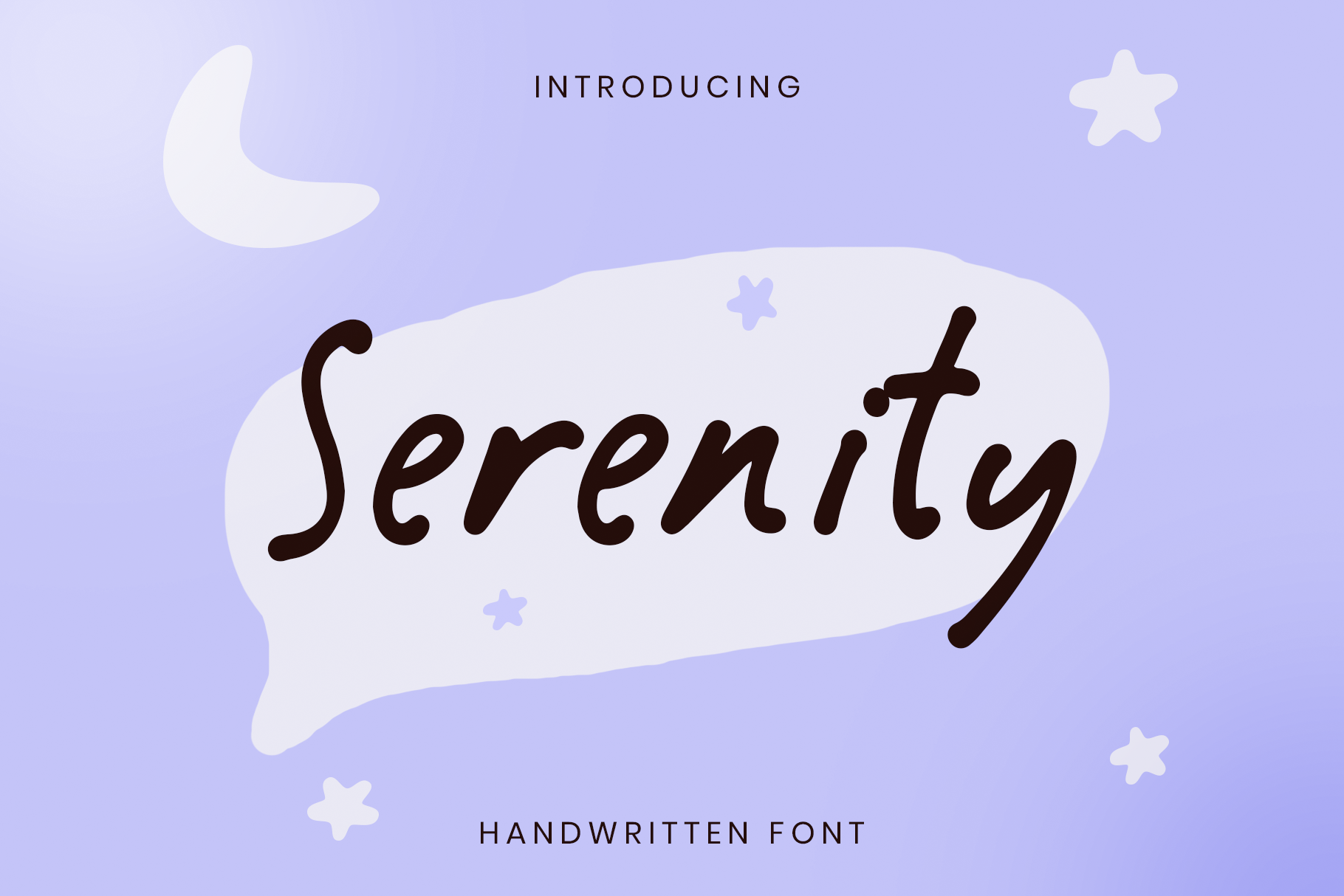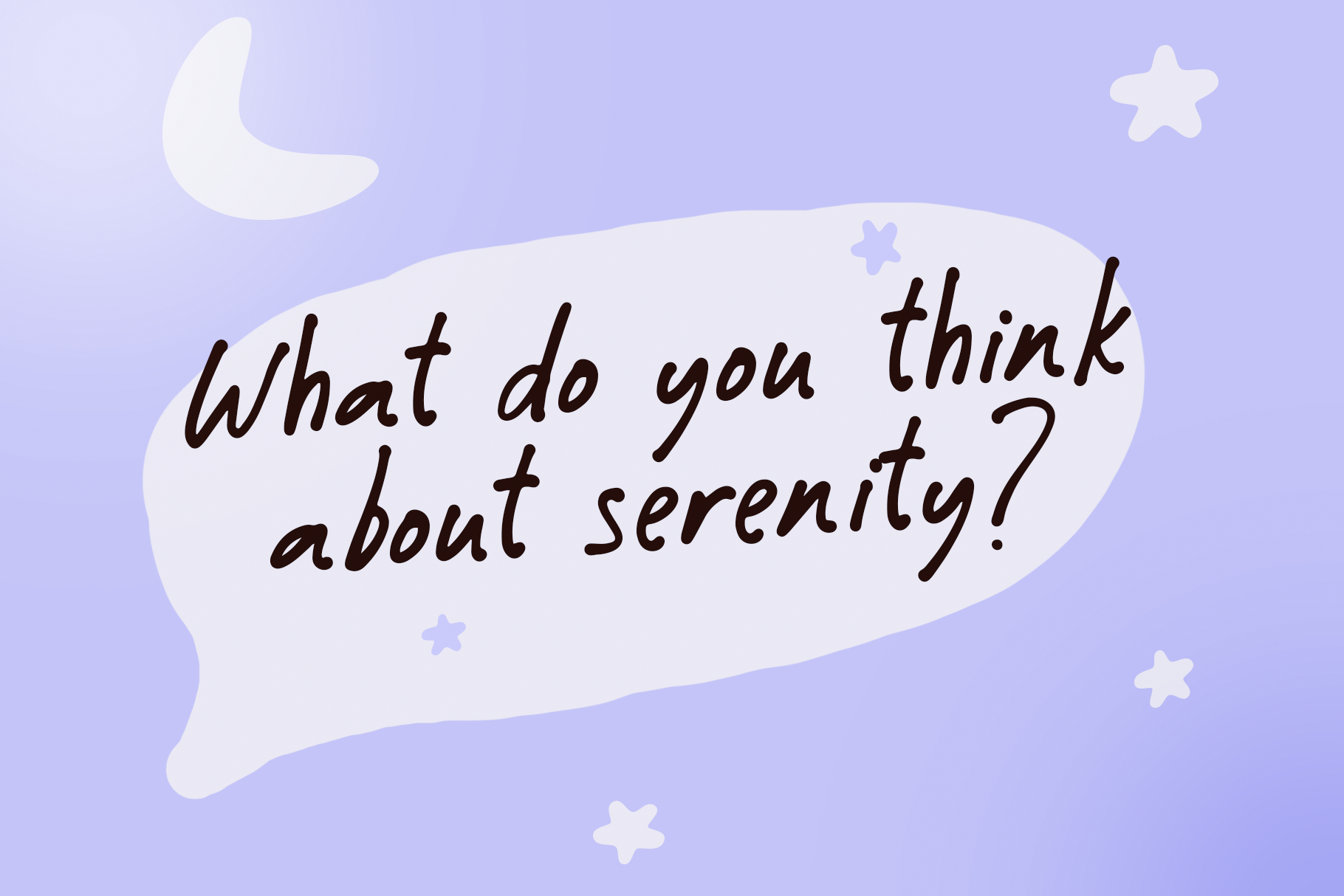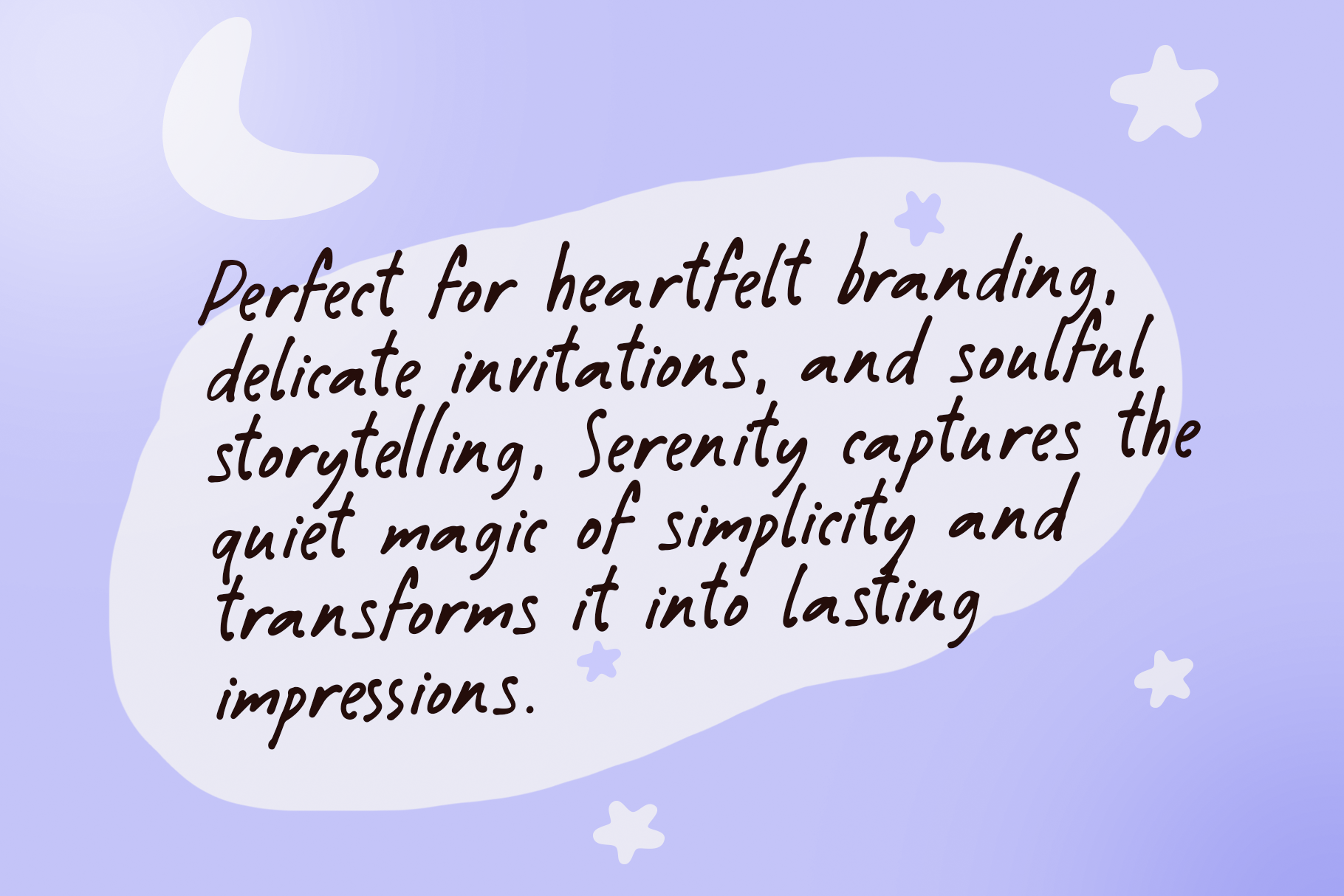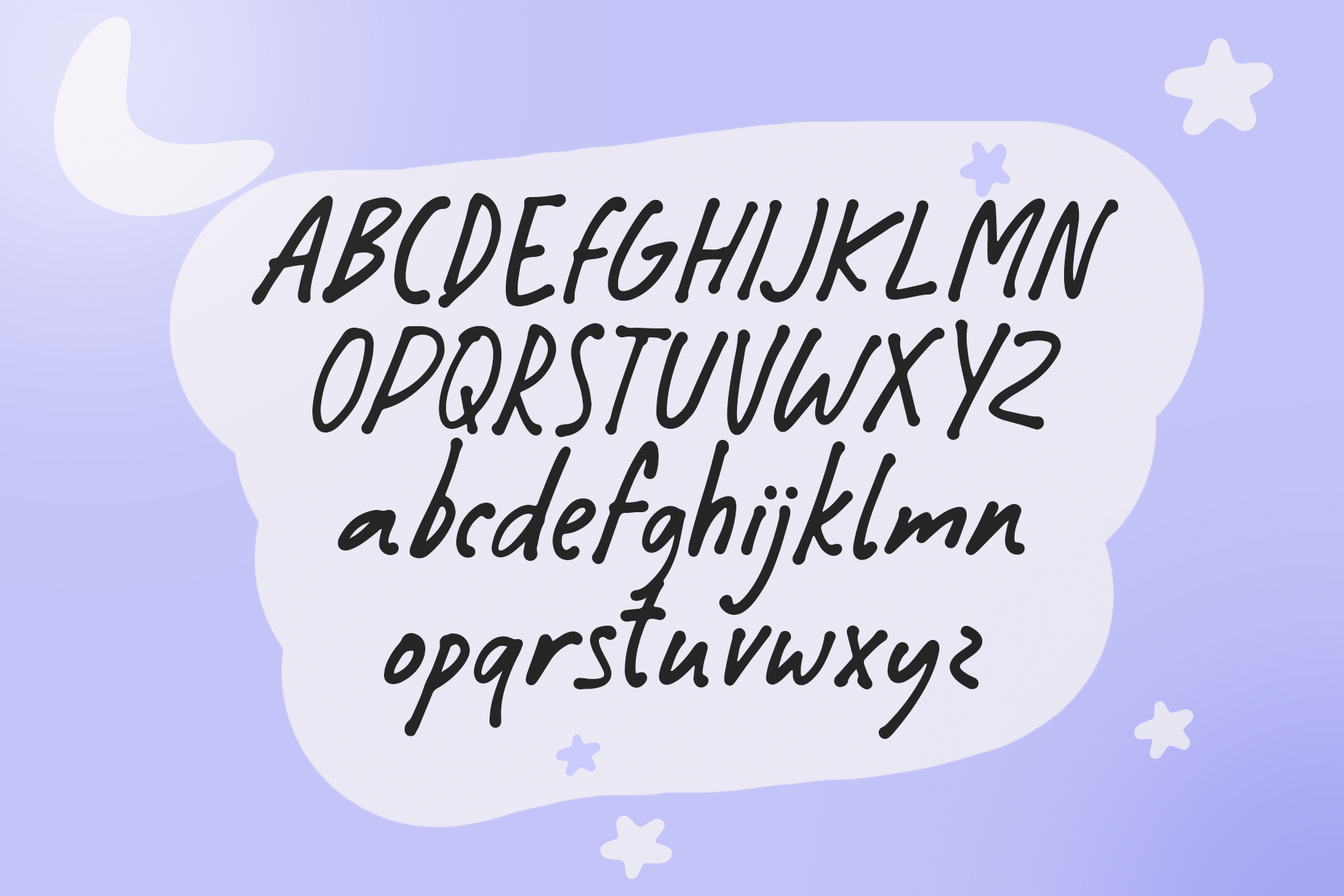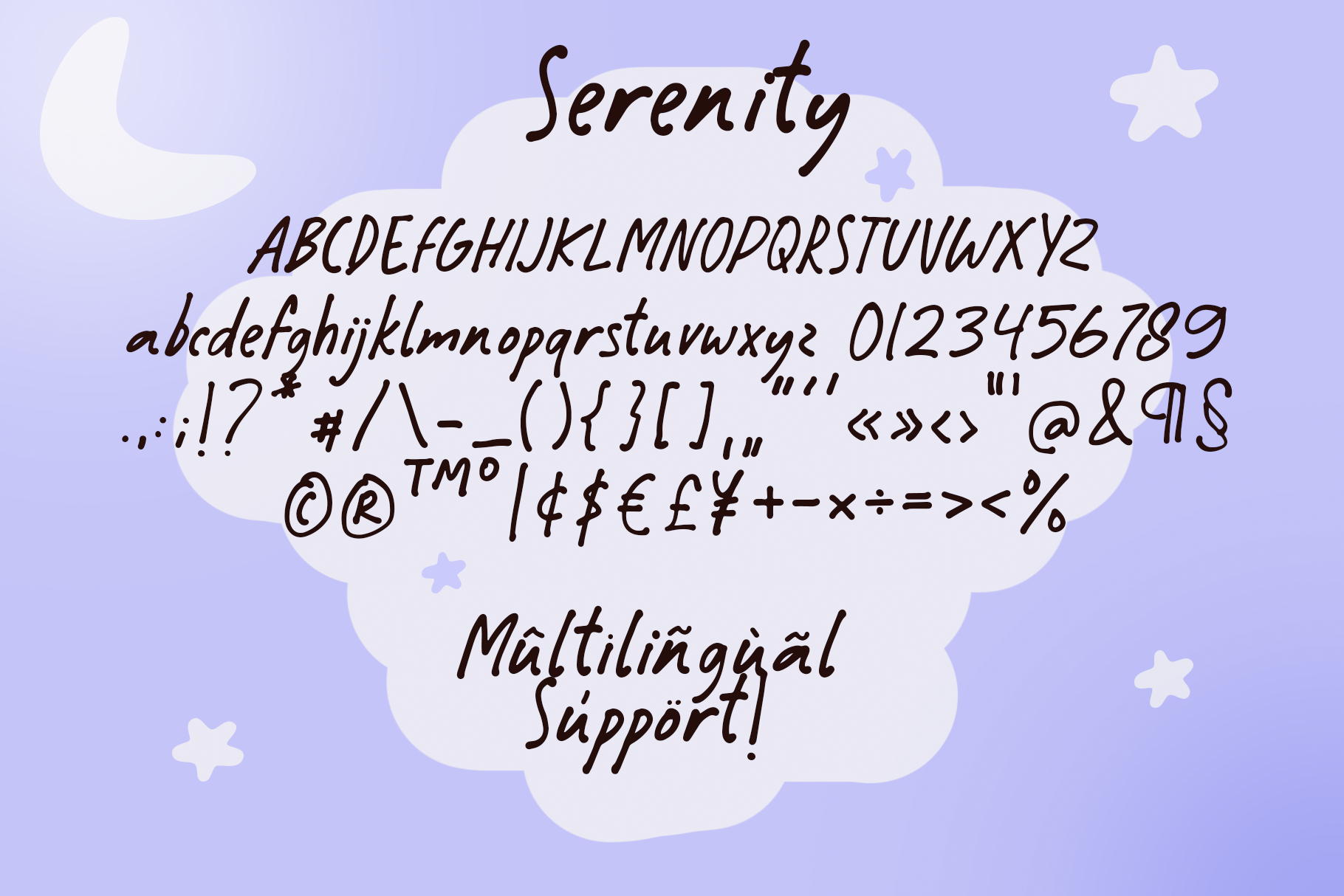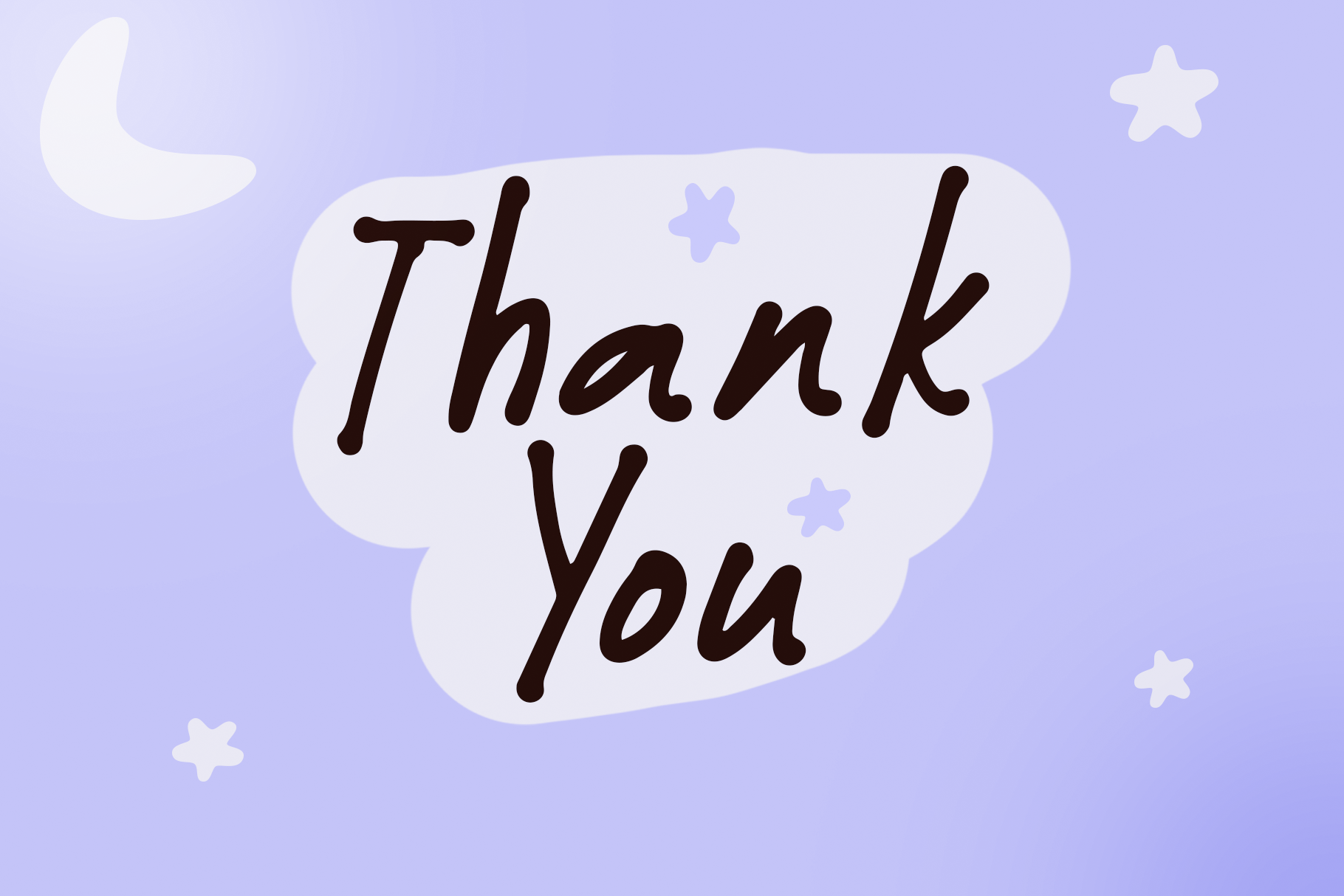
Serenity HF
Elevate your note-taking experience with Serenity Handwritten Font, this is the best font for notes. This meticulously crafted typeface brings a perfect blend of elegance and readability to your written words. With its refined strokes and timeless charm, Serenity adds a touch of sophistication to every notes.
Ideal for both digital and traditional note-taking, Serenity Handwritten Font ensures that your notes not only convey information but also make a visual statement. The clarity and unique character of this best font for notes make it stand out as the perfect companion for those who appreciate the artistry of writing.
Transform your design into a work of art with Serenity Handwritten Font – where legibility meets elegance seamlessly.